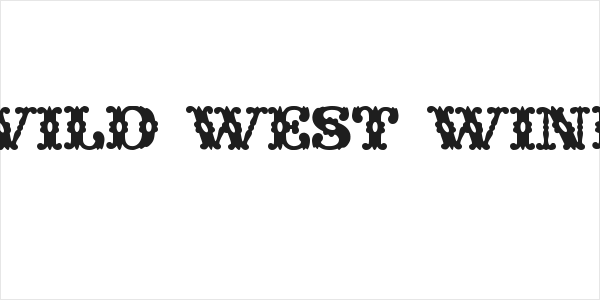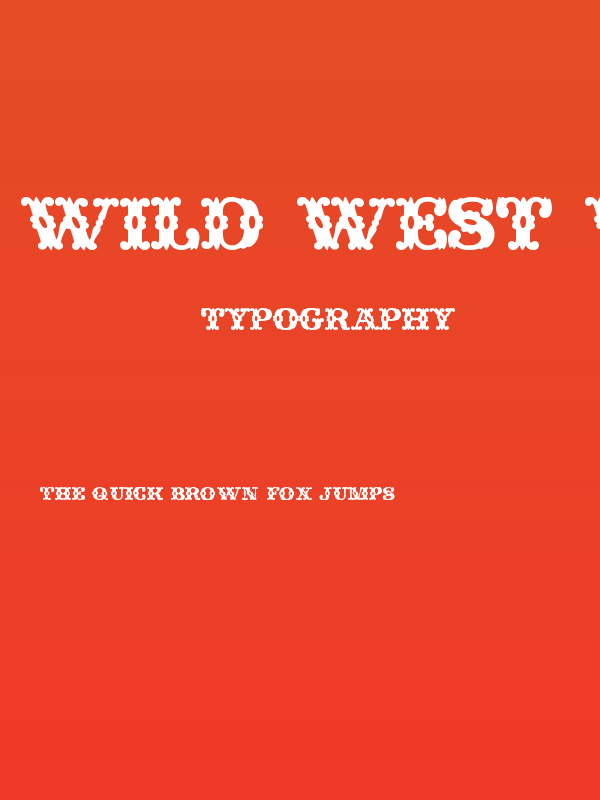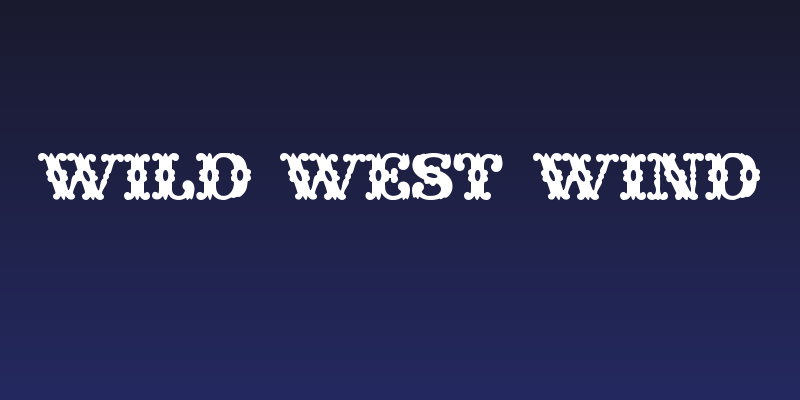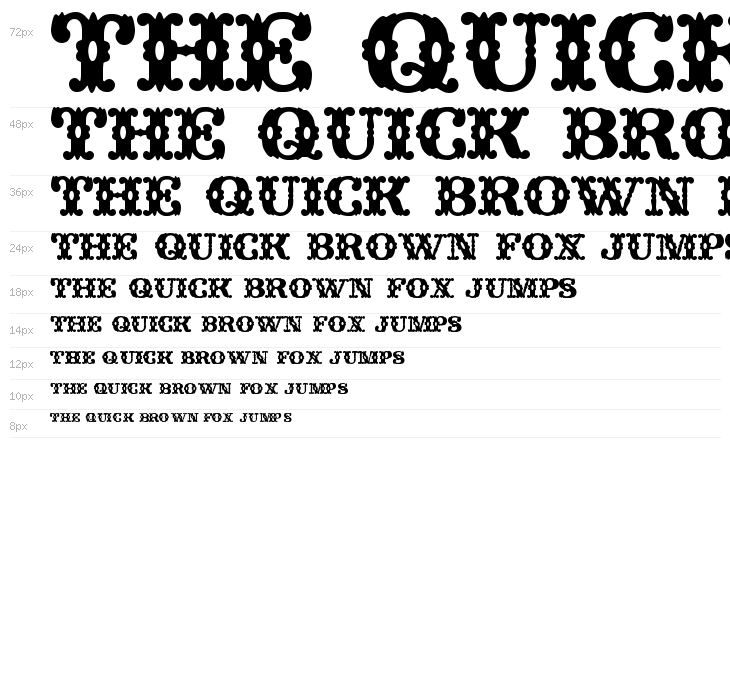
Wild West Wind Font
Wild West Wind Description
This font features a bold, decorative style reminiscent of the Wild West era, characterized by intricate details and ornamental flourishes. The uppercase letters are robust and eye-catching, with unique embellishments that give each character a distinct personality. The numbers and special characters maintain this theme, providing a cohesive look across all glyphs. The font's design is both playful and nostalgic, making it ideal for projects that require a vintage or Western aesthetic. Its bold weight and decorative elements make it stand out, ensuring that any text set in this font will capture attention.
| Proposed Projects | Ideal for posters, event invitations, themed parties, branding for Western-themed products, or any design needing a vintage flair. |